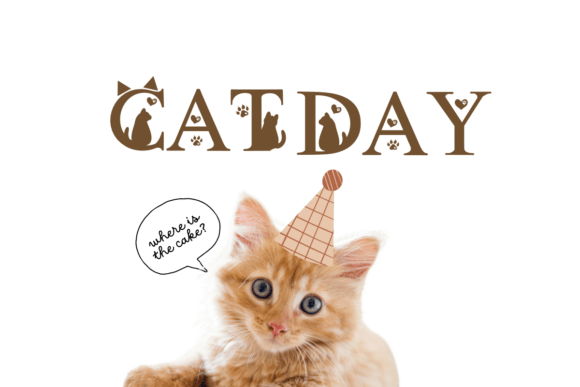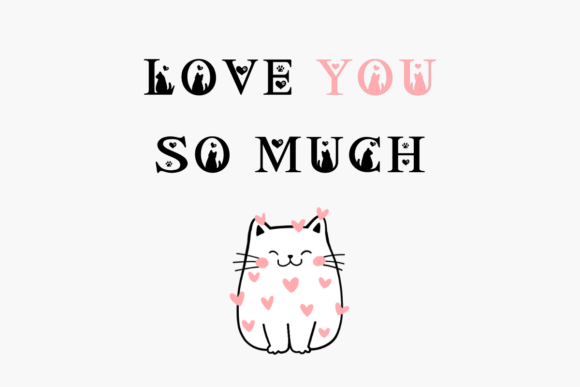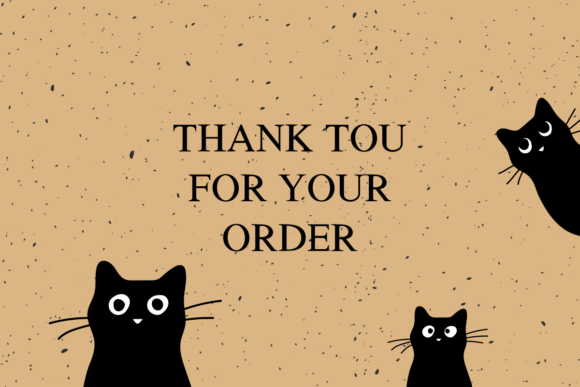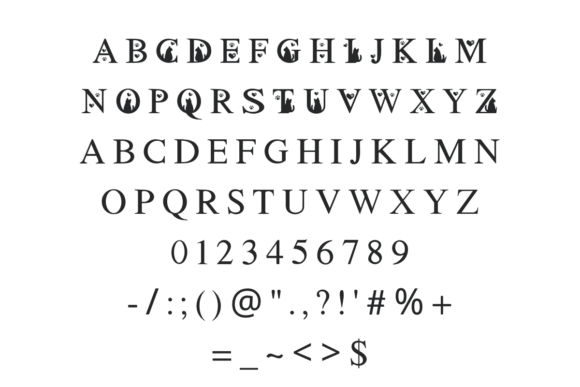
Unleash Your Inner Feline: Discovering Cat Font Font
Who hasn’t scribbled out a to-do list with a playful flourish or doodled a mischievous cat on a sticky note? For many of us, creative moments are sparked by a dash of whimsy and a pinch of personality. And that’s exactly what Cat Font Font is all about – adding a touch of feline charm to our daily lives.
This delightful decorative font is designed to bring a smile to your face and a spring to your step. Whether you’re jotting down notes, writing a diary entry, or crafting a greeting card, Cat Font Font is the purr-fect companion for any creative endeavor. And its versatility knows no bounds – use it to create eye-catching banners, social media posts, or even merchandise like mugs and t-shirts!
Cat Font Font Key Features
- Unique Character Set: Includes a wide range of cat-inspired symbols and emojis, adding a playful touch to designs.
Designer Review: Cat Font Font
Overall, I think Cat Font Font is an interesting choice for those looking for a whimsical font. ✨ It’s perfect for adding a touch of playfulness to your designs. The font’s cutesy feel is sure to bring a smile to the faces of your audience.
Here are some of the things that work well with Cat Font Font:
- Unique and memorable: This font is sure to stand out from the crowd and leave a lasting impression.
- Fun and playful: The cutesy feel of the font makes it perfect for designs that need a lighthearted touch.
- Customizable: The font comes in a range of styles and weights, making it easy to find the perfect fit for your design.
- Not suitable for formal designs: While the font is great for playful designs, it may not be the best choice for more formal projects.
- May not be legible at smaller sizes: The font’s cutesy feel can sometimes make it difficult to read at smaller sizes.
- May be distracting: The font’s playful feel can be distracting if used excessively.
Overall, I think Cat Font Font is a great choice for designers looking for a fun and playful font. While it may have its limitations, it’s sure to add a unique touch to your designs.
Cat Font Font is perfect for adding a touch of whimsy and playfulness to your designs. Use it for:
– Children’s book covers
– Party invitations
– Branding materials
To get the most out of Cat Font Font, try combining it with other playful fonts and graphics. Experiment with different font sizes, colors, and styles to create a unique look. Don’t be afraid to add some personality to your designs with Cat Font Font!